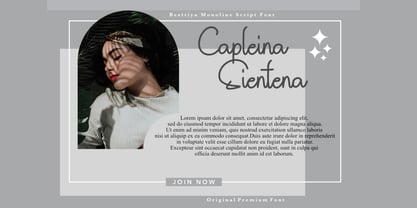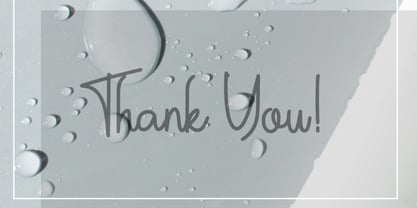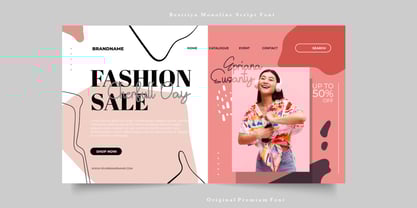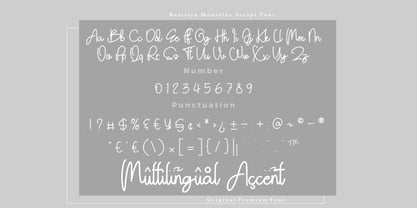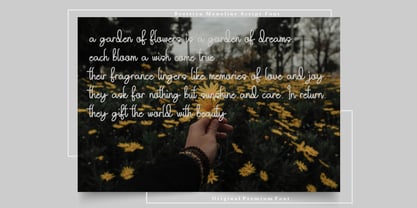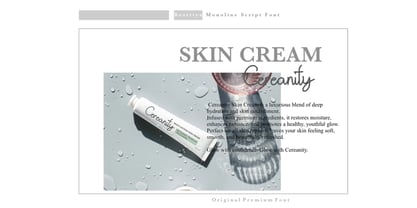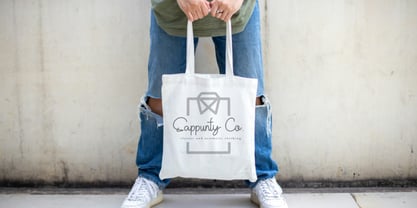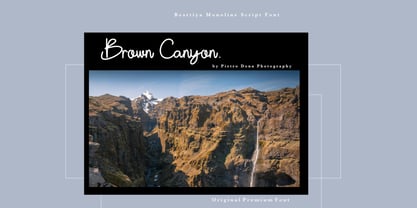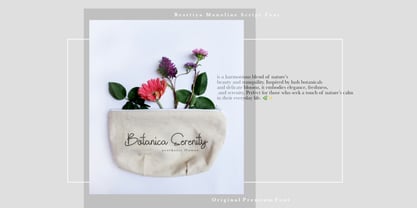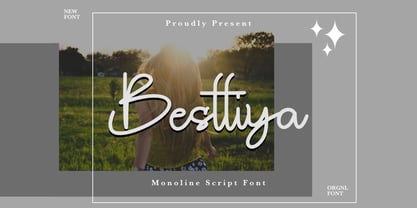
Besttiya
by Bayuktx
The Besttiya Font Family was designed by Bayu Aji Fais Mursid and published by Bayuktx. Besttiya contains 1 styles.
Besttiya Monoline Script Font
Besttiya Monoline Script Font is a premium-quality typeface designed with elegance and precision. This stylish and smooth monoline script is perfect for a variety of creative projects, including branding, logos, invitations, posters, packaging, merchandise, and more. Whether you're crafting a sophisticated design or adding a personal touch to your projects, this font offers versatility and charm.
### FEATURES:
✔ Uppercase & Lowercase
✔ Numbers & Punctuation
✔ Multilingual Support
✔ PUA Encoded
✔ OpenType Features